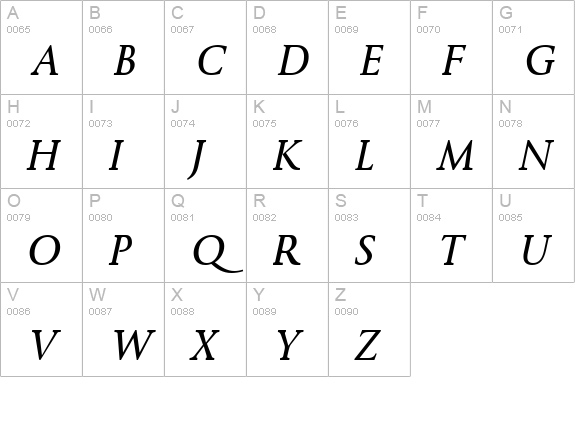
Byington-Italic is a distinctive, italic variant in the Byington typeface family \xE2\x80\x94 well suited to design and typography projects.
Byington-Italic is a beautifully crafted font that exudes elegance and sophistication. Its sleek and slender design perfectly complements any design project, adding a touch of class and style. The italicized characters add a sense of flair and creativity, making it perfect for use in headings, titles, and other display purposes. The best part about Byington-Italic is that it is completely free to download. You can easily access this stunning font at FontsMarket.com, where you can find a wide range of other high-quality fonts as well. Don't miss out on the opportunity to enhance your designs with this exquisite typeface that combines modernity with a timeless appeal. Download Byington-Italic today and elevate your projects with its unique charm and sophistication.